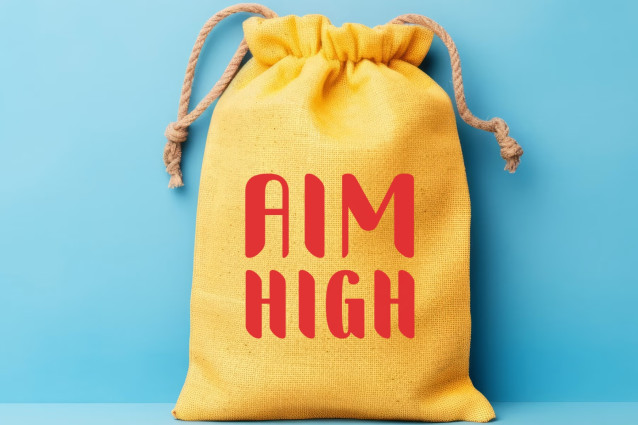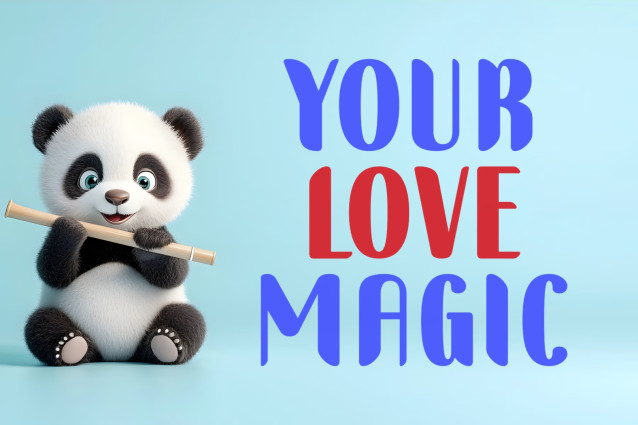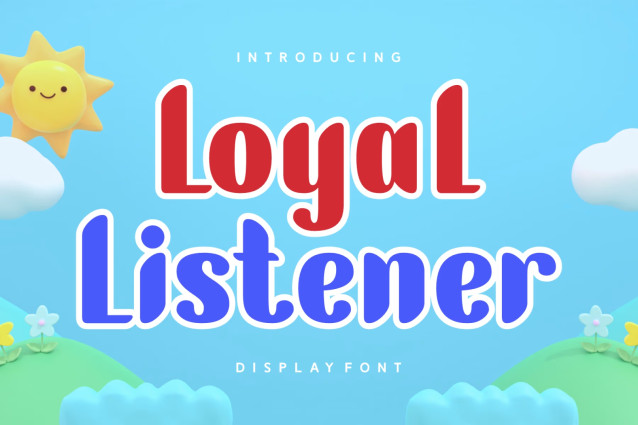
Loyal Listener Font
Experience the charm of “Loyal Listener,” a versatile typeface that impressively blends elements across Display, Cute, Feminine, Love, and Fashion categories, making it an appealing choice for a wide array of creative endeavors. With its hand-drawn characters and visually pleasing aesthetics, this font is perfect for crafting headlines that captivate and inspire.
“Loyal Listener” encapsulates the essence of authentic, beautiful typography with its clean, simple structure and smooth, round edges. Its popularity is notable across social media platforms and different streams of photography, enhancing school prints, magazine layouts, book covers, and greeting cards with its unique charm. Academic institutions, brands, and apparel creators sing praises for its effortlessly stylish appeal.
In the sphere of sublimation, “Loyal Listener’s” trendy playfulness brings a spark of life to wallpapers, packaging designs, and logotypes. The font’s multilingual support underscores its universal appeal, rendering it a reliable companion for global creations. Its cursive accents offer an added touch of elegance, while its potential for creating powerful quotes, seasonal greetings, and catchy t-shirt slogans is unlimited.
An offering from 7ntypes, “Loyal Listener” is an embodiment of authenticity – honouring traditional craftsmanship while embracing modern design aesthetics. Dive into the endless creative adventures this font offers by using it in your next project.